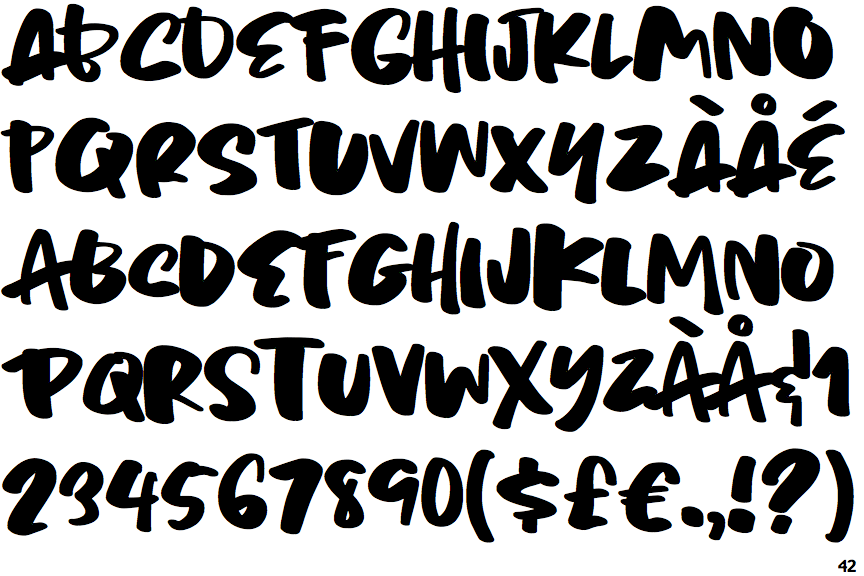
Review Of Chaotic Fonts References
Review Of Chaotic Fonts References. Web chaotic has stylistic standard, stylistic alternate, stylistic sets and ligatures. Chaotic font work that is purely handwritten, has its own.
It has a modern yet whimsical style and it will undoubtedly immerse your designs into a magical world. Web chaotic is a chic and trendy handwritten font. This is a beautiful combination of timeless elegance and authentic calligraphy.
Chaotic Font Work That Is Purely Handwritten, Has Its Own.
Web Chaotic By Tatianna Kirkland.